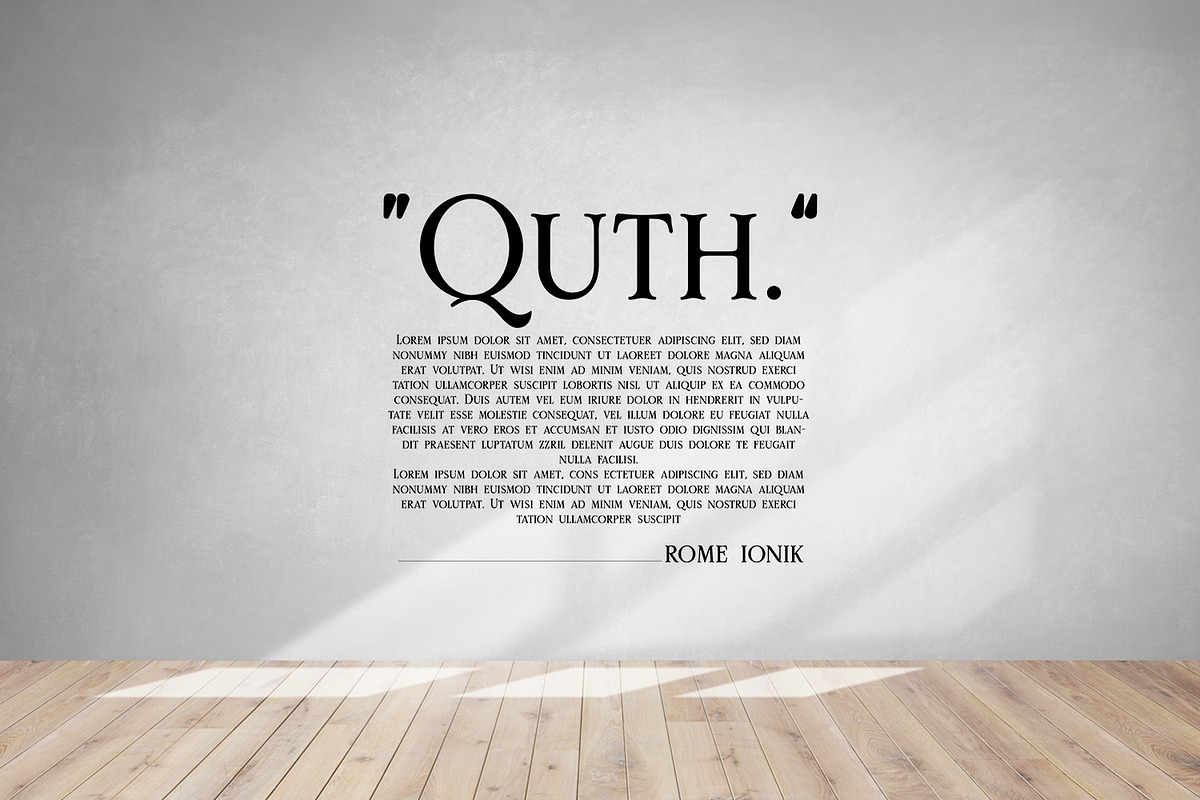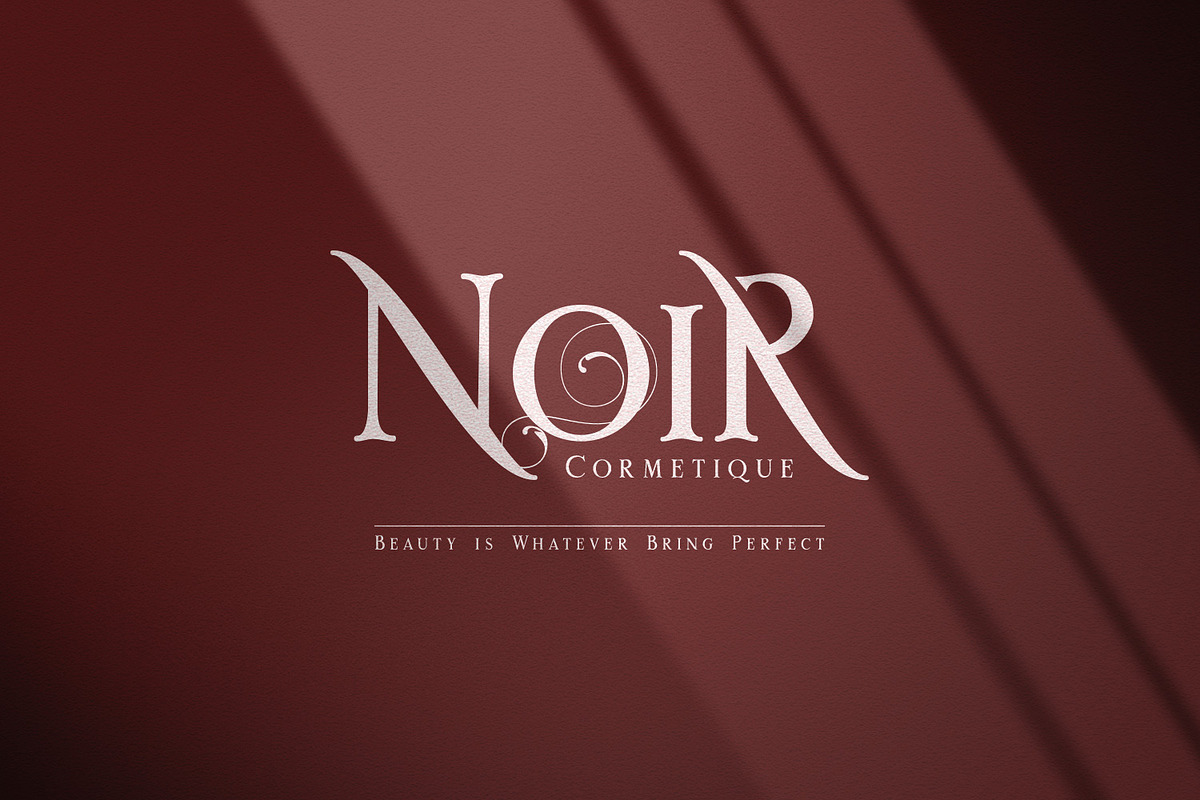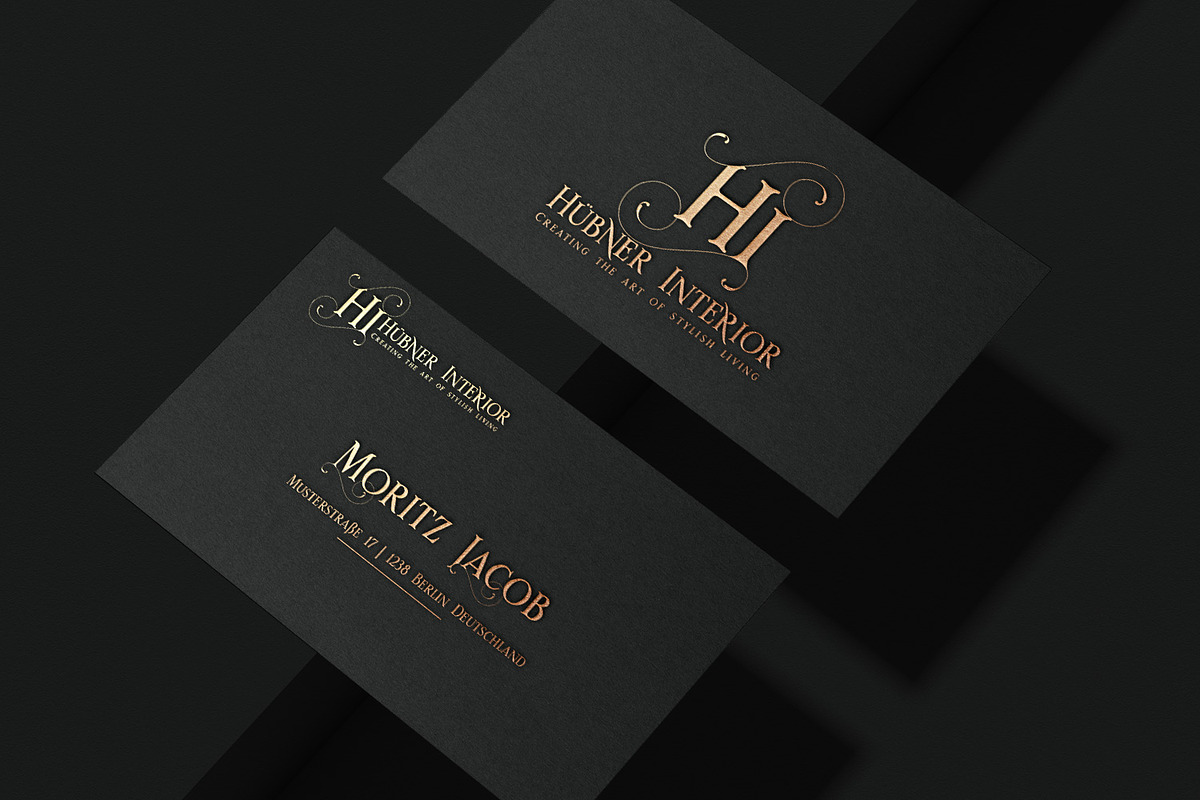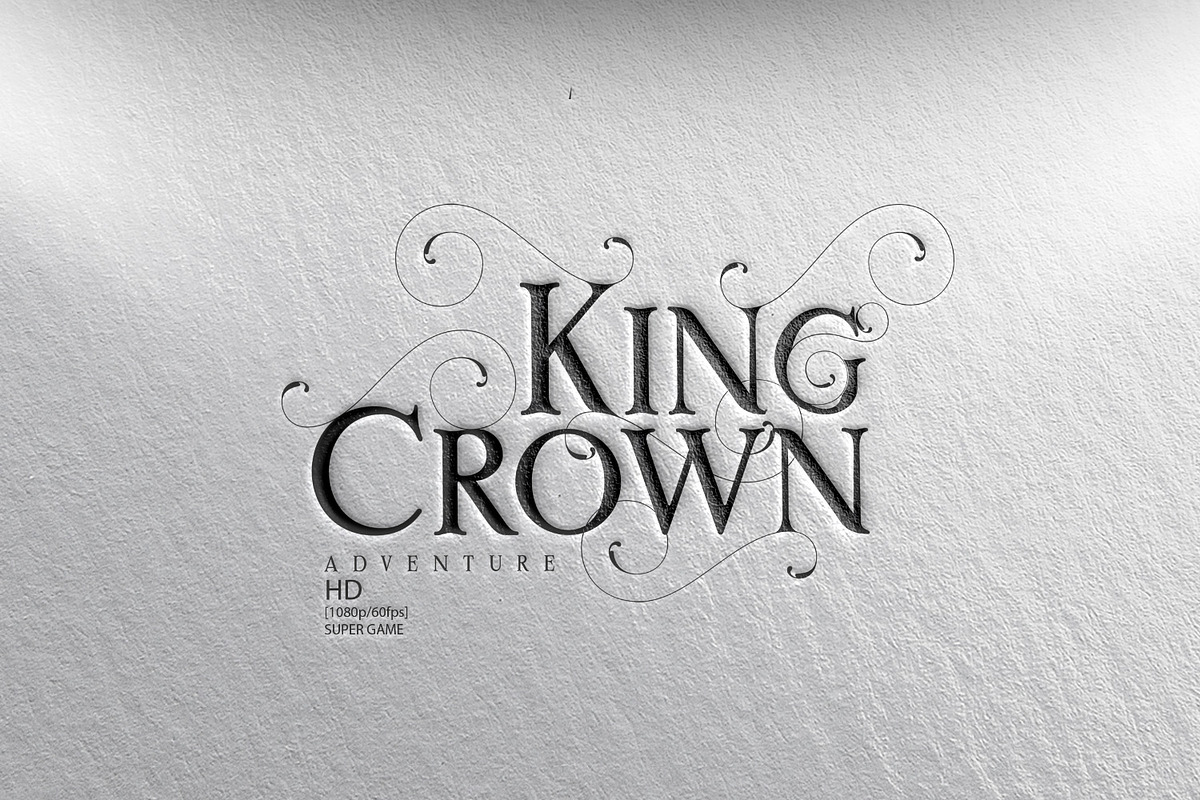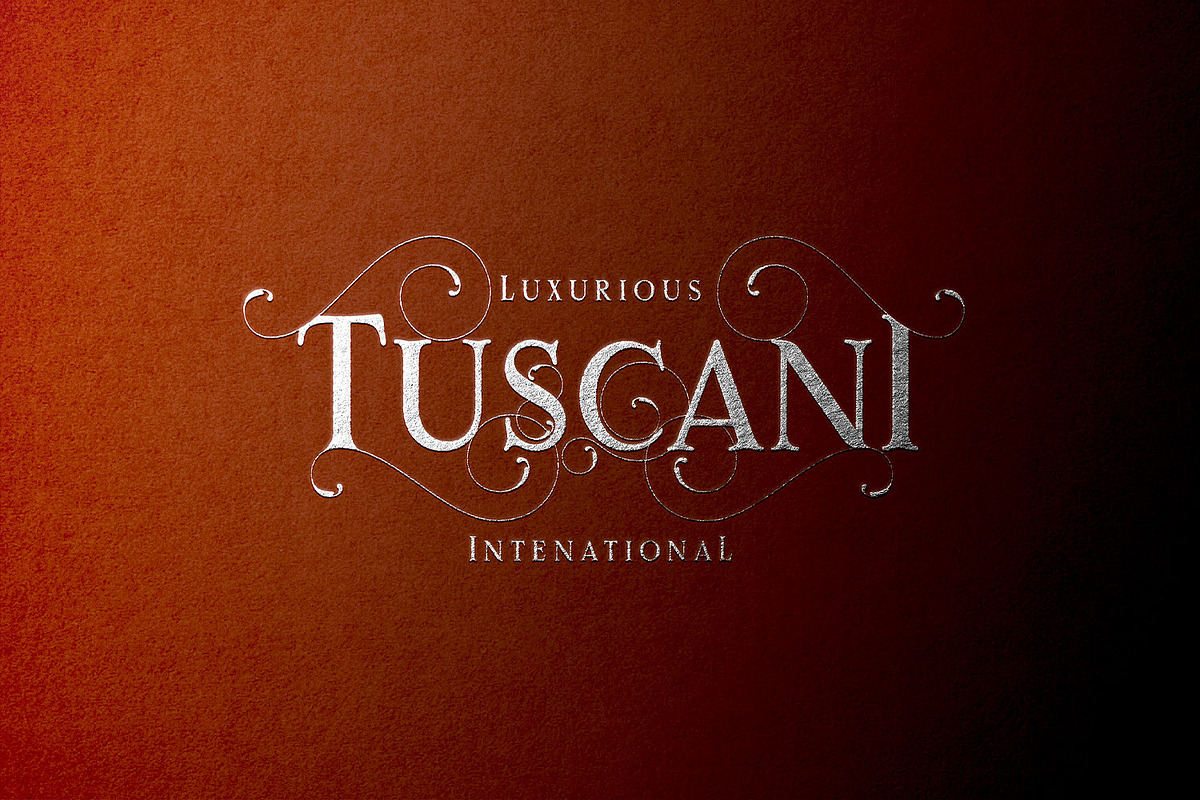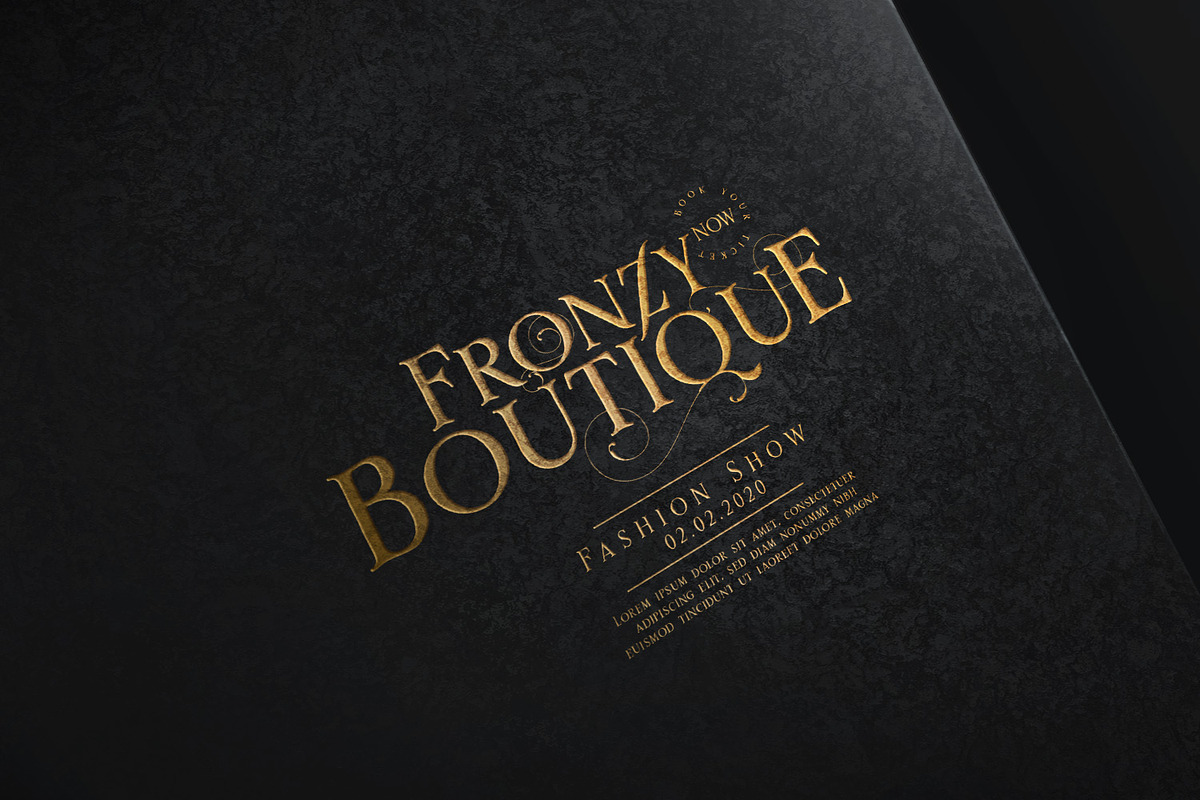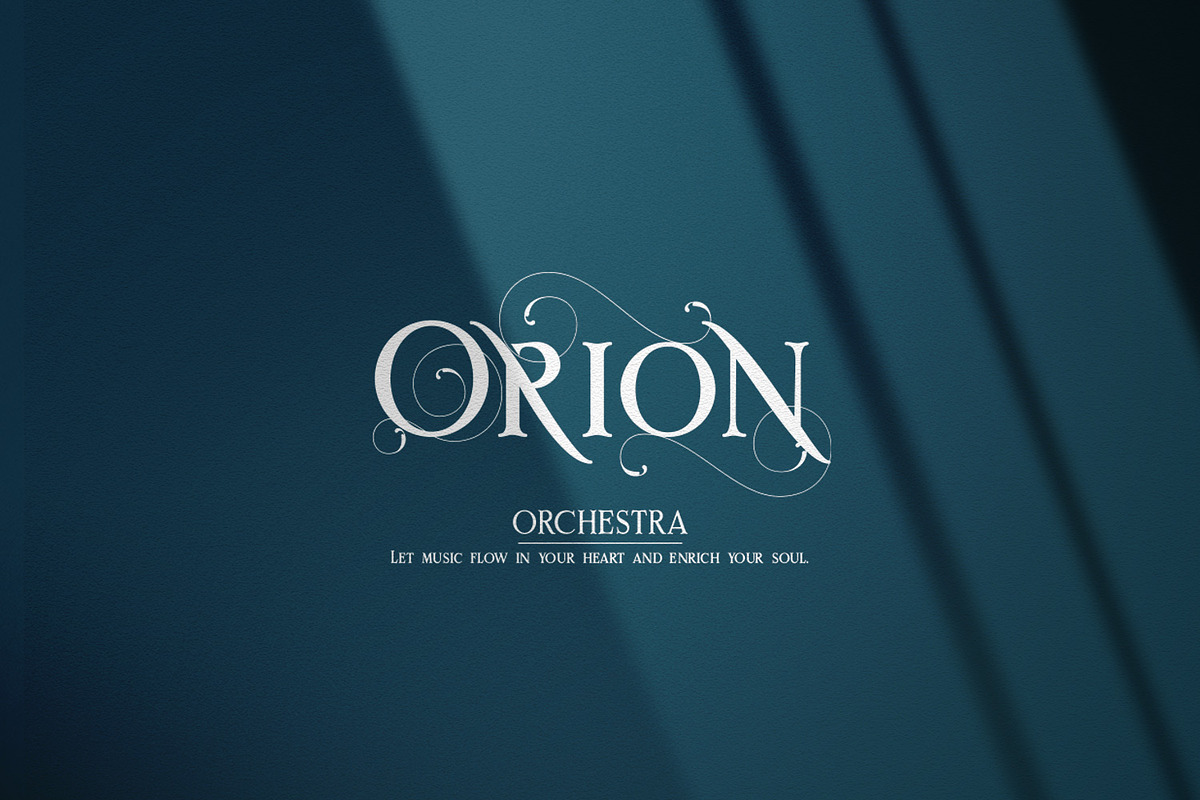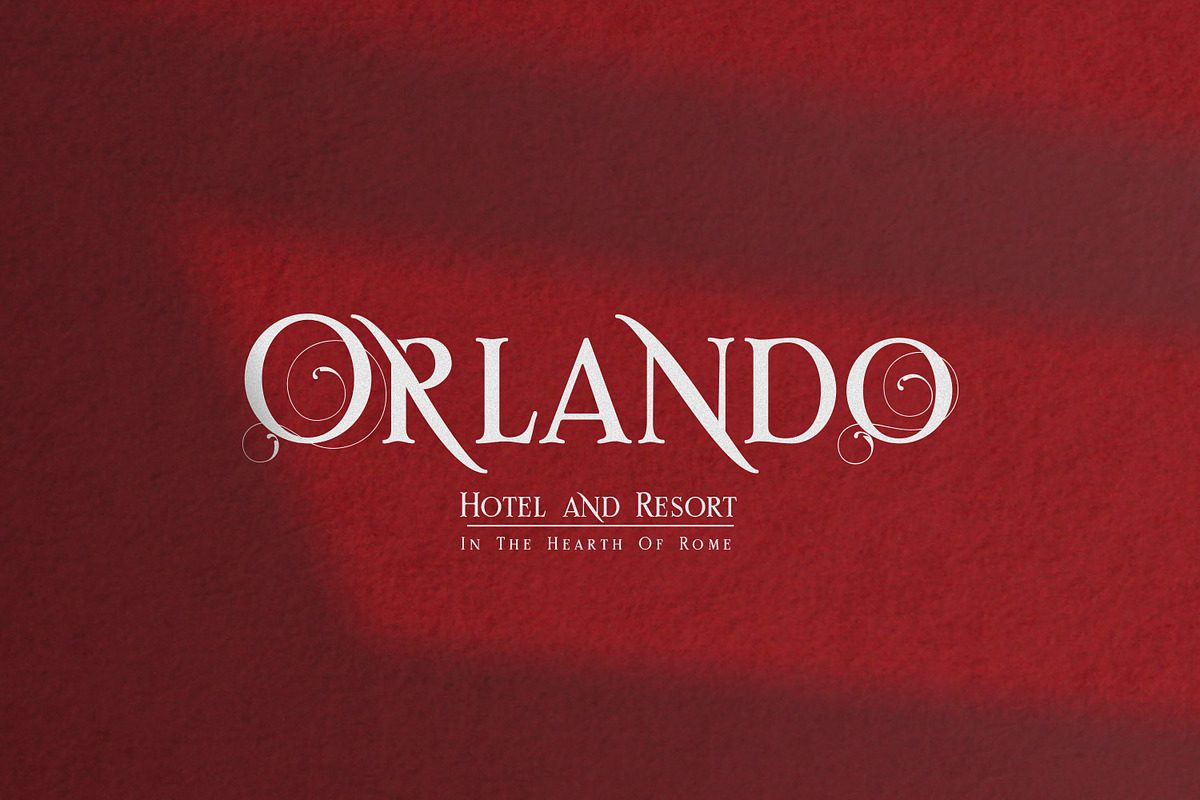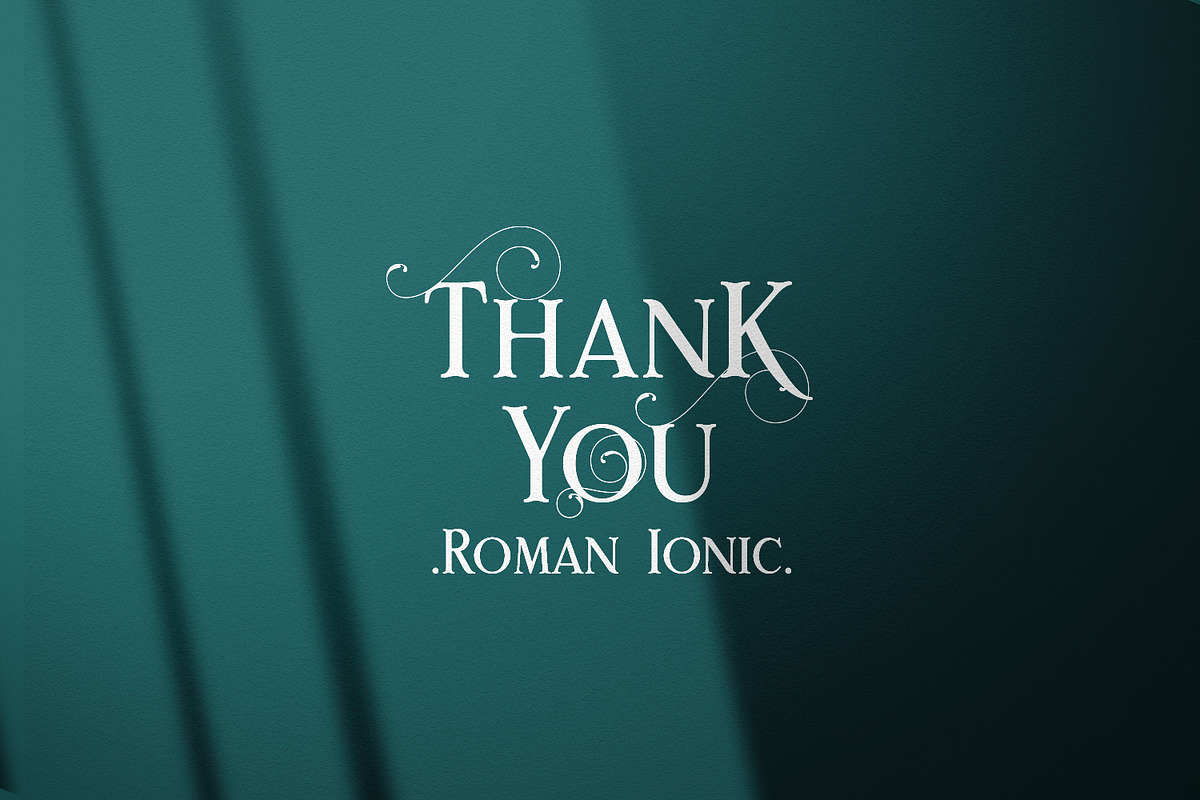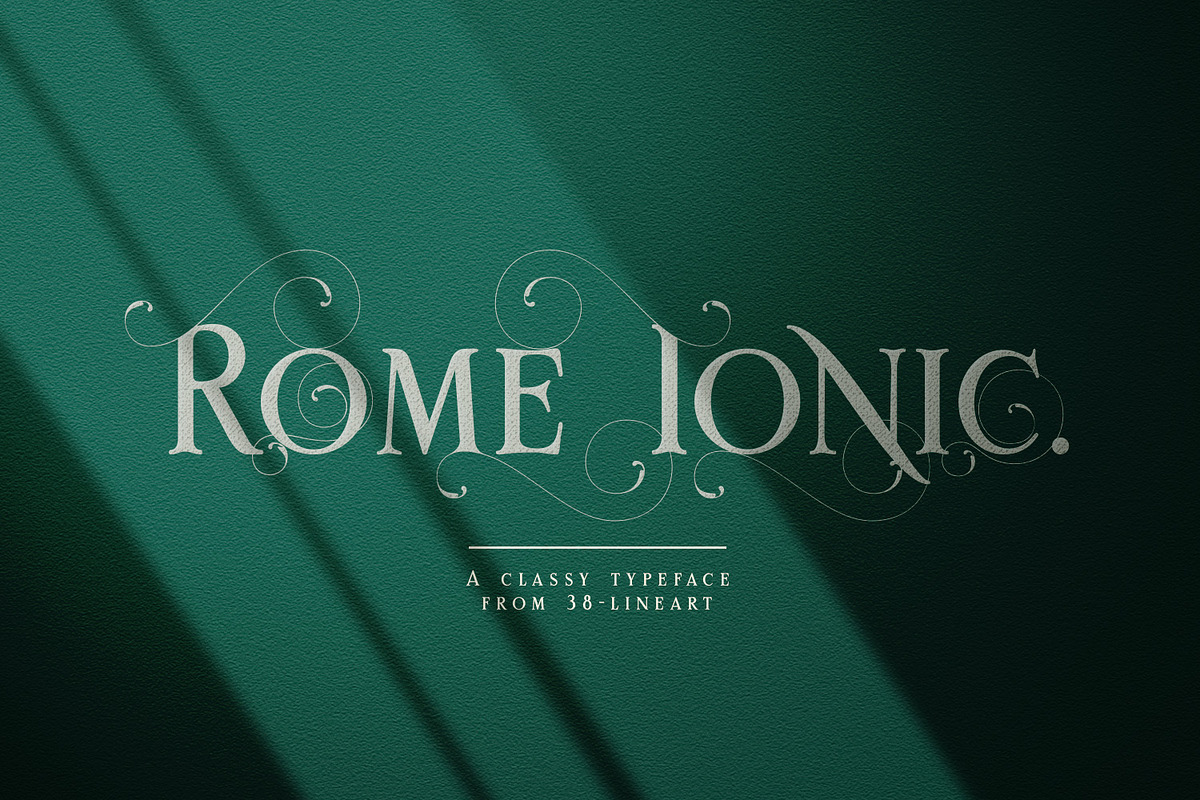
Rome Ionic
Rome Ionic is a serif display font inspired by architectural features in ancient Roman building columns, the Ionic columns are taller and slender compared to ‘Doric and Corinthian’. On the Ionic Capitol column, there is a geometric spiral like a paper roll. These elements that we analogize into this roman style font The base of this font is serif shaped more slender and towering, equipped with 8-18 stylistic set alternate, alternate this is the development of the basic shape that we add spiral ornaments to the left and right. This serif font’s characteristic is soft and simple, not sharp and complicated like Doric and Corinthian. The composition of the softness of the basic and alternate fonts does not reduce the splendor of this font. we complement this font with support for the Latin extend as an analogy from the Roman region This font is perfect for ‘impressive luxury and power’ designs. With this font, your branding will show the robustness and refute the splendor of other products.